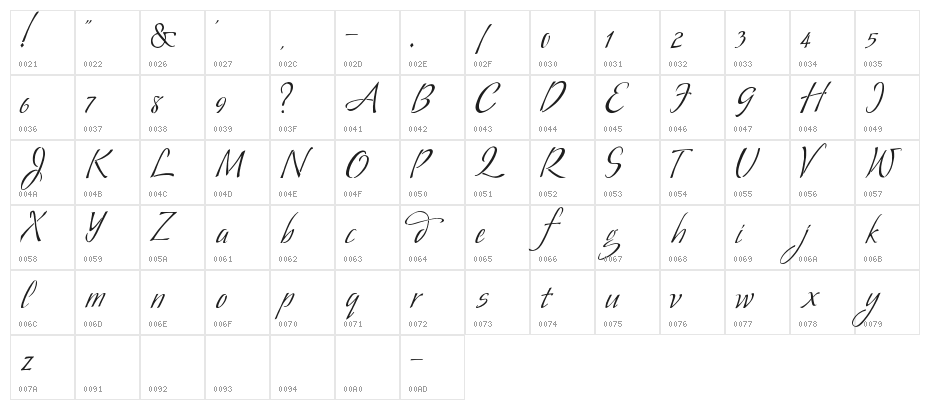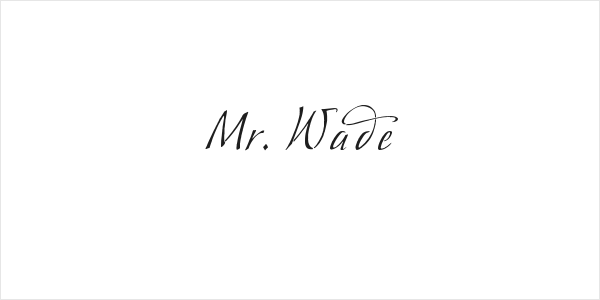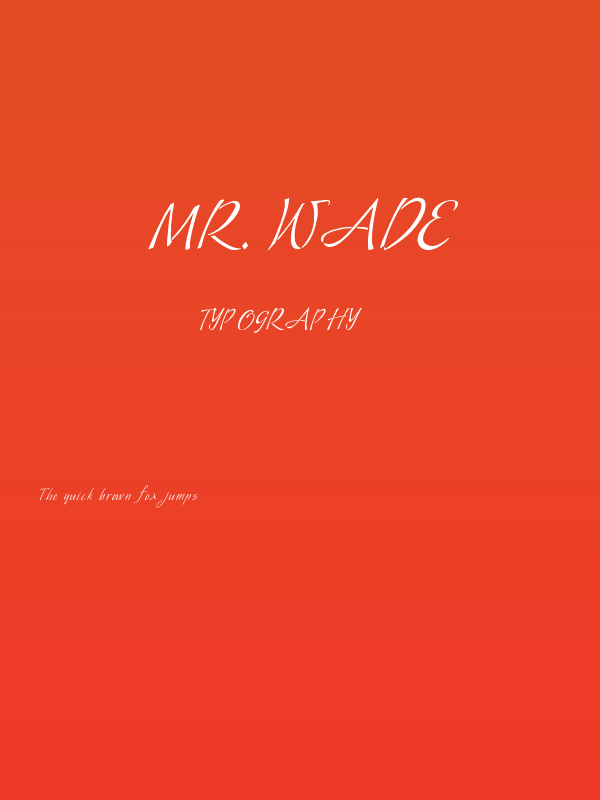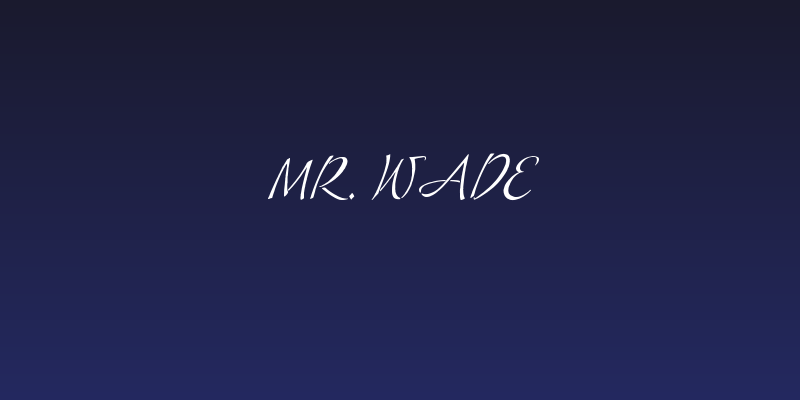
Mr. Wade Font
Mr. Wade Description
This elegant script font features a flowing, cursive style with a sophisticated flair. The uppercase letters are characterized by sweeping curves and delicate strokes, creating a sense of movement and grace. The lowercase letters maintain a consistent style, with smooth connections and a slightly slanted orientation. The numerals are designed to complement the letterforms, with a similar fluidity and elegance. Special characters, such as punctuation marks and symbols, are crafted with the same attention to detail, enhancing the overall aesthetic. This font exudes a classic yet modern appeal, making it suitable for a variety of design applications.
| Proposed Projects | Ideal for wedding invitations, elegant branding, high-end product packaging, and sophisticated editorial design. |